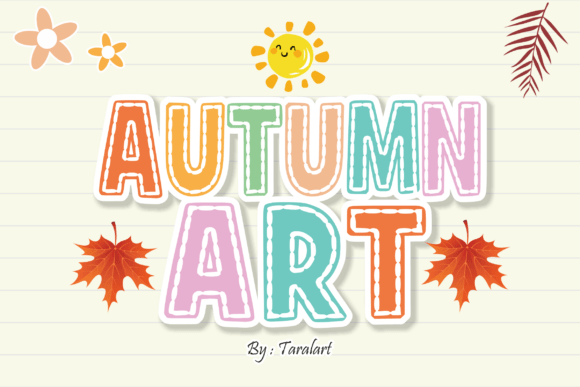
The Magic of Autumn Art: A Font That Brings Whimsy to Your Designs
I’ll never forget the day I stumbled upon the perfect font for a client’s project. I was working on a whimsical animation for a children’s show, and I needed a typeface that would bring the characters to life. That’s when I discovered Autumn Art, an enchantingly vibrant fall-inspired cartoon font that instantly captured the essence of the show. In this article, I’ll share my experience with Autumn Art, its features, and how to make the most of it in your designs.
As a designer, I’m always on the lookout for fonts that can add a touch of personality to my projects. Autumn Art has become a staple in my font library, and here’s why:
• ✨ Unique Character Design: Each character is carefully crafted to bring a sense of delight and cheer to your designs.
• ✅ Versatility: From t-shirts and mugs to animations and comic titles, Autumn Art is an excellent choice for various design projects.
• 🎨 Customizable: With OpenType features and glyphs, you can experiment with different styles and alternates to make your designs truly unique.
While Autumn Art is an amazing font, it’s not without its quirks:
• 🤔 Limited Serif Options: If you’re looking for a font with extensive serif options, Autumn Art might not be the best fit.
• ⚠️ Occasional Kerning Issues: As with any font, you might encounter kerning issues, especially when using it in combination with other fonts.
The Story Behind Autumn Art
Autumn Art was designed by a team of creatives who wanted to capture the essence of fall in a font. Inspired by the changing leaves, cozy sweaters, and warm pumpkin spice lattes, they crafted a typeface that embodies the whimsy and charm of the season. The font’s unique characters and OpenType features make it an excellent choice for designers looking to add a touch of autumnal magic to their projects.
Author TaralArt
What is Autumn Art font best used for? Autumn Art is ideal for designs that require a touch of whimsy and playfulness, such as children’s books, animations, t-shirts, mugs, and tote bags.
Does Autumn Art support OpenType features? Yes, Autumn Art supports OpenType features, including glyphs and stylistic alternates, allowing for customizable designs.
Autumn Art is a versatile font that can bring a touch of magic to your designs. With its unique character design, versatility, and customizable features, it’s an excellent choice for designers, crafters, and creative hobbyists. Whether you’re working on a children’s book, animation, or craft project, Autumn Art is sure to delight and inspire.